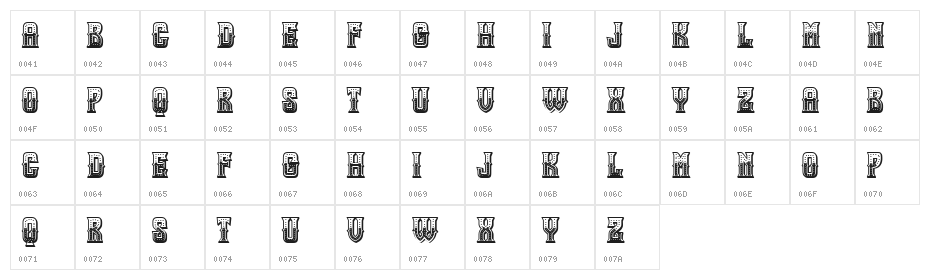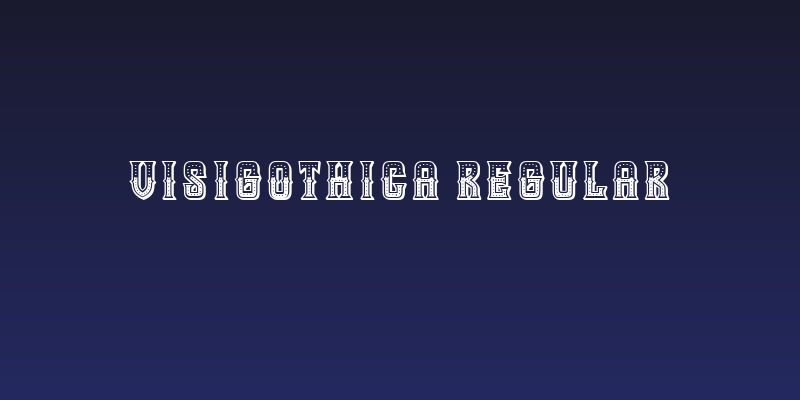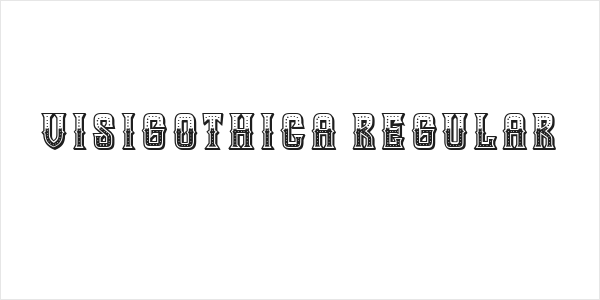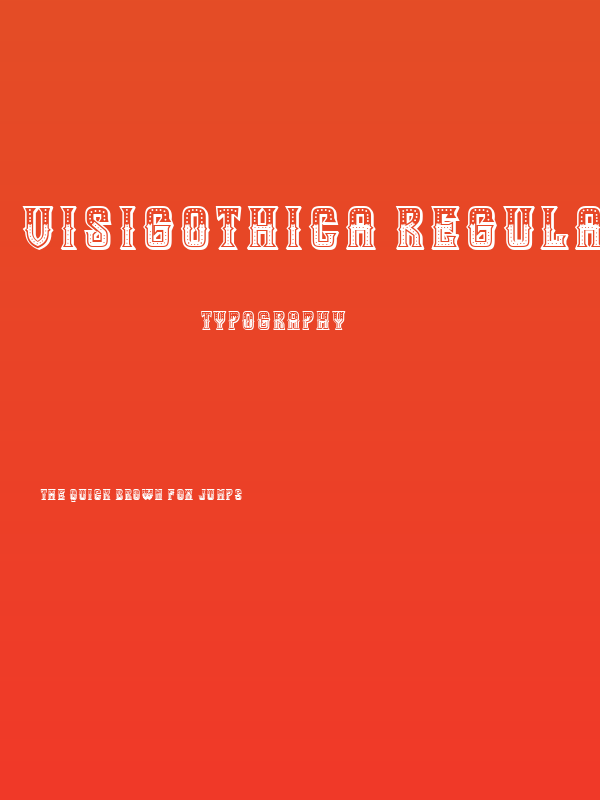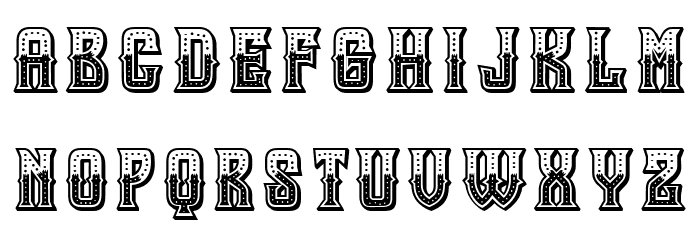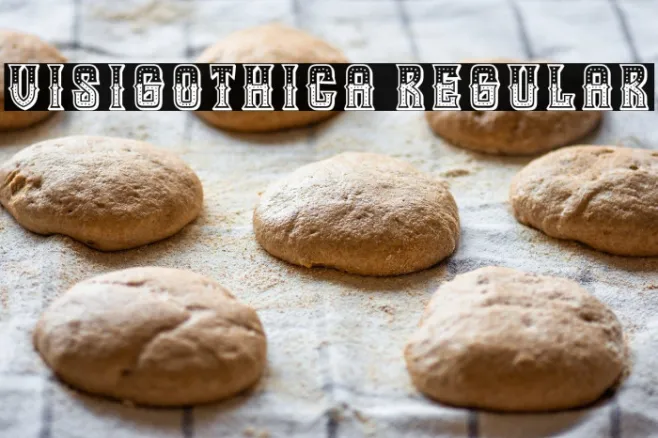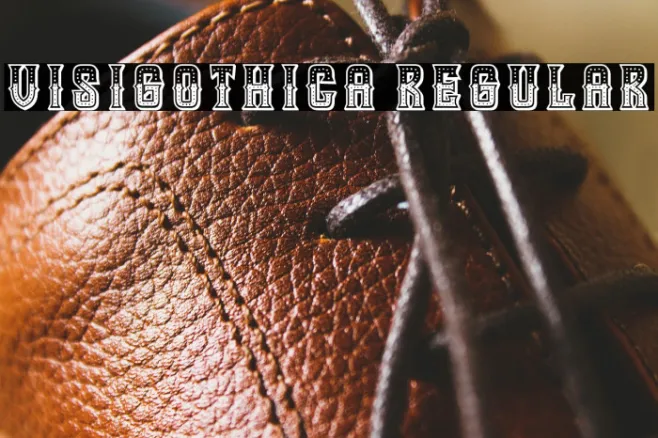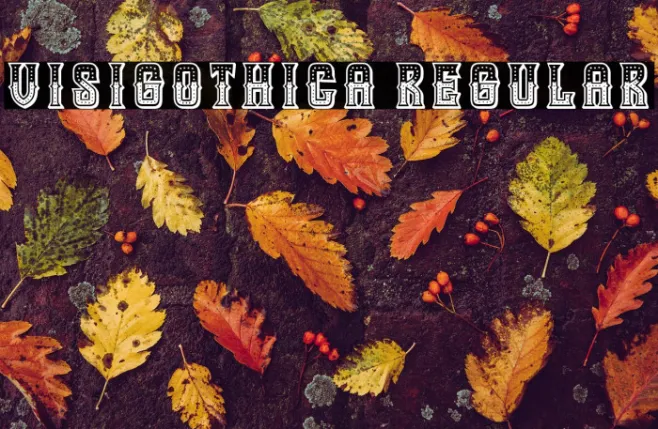
Visigothica Regular Font
Visigothica Regular Description
This font features a bold, decorative style with intricate detailing and a strong presence. Each character is adorned with unique embellishments, giving it a distinct and ornate appearance. The design incorporates a blend of classic and modern elements, resulting in a font that is both eye-catching and versatile. The letters are structured with a solid, block-like form, enhanced by decorative patterns and outlines that add depth and dimension. This font is ideal for projects that require a striking and memorable visual impact.